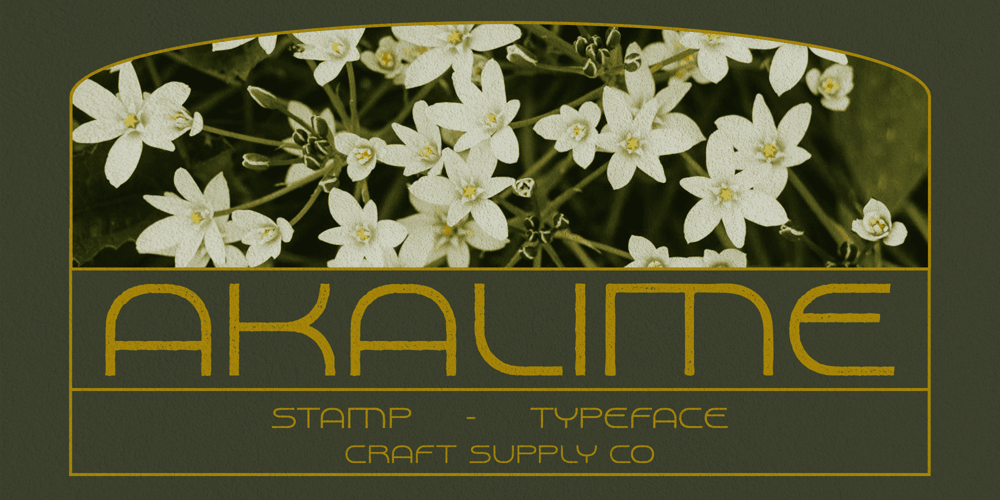
Akalime Stamp
Akalime Stamp font
Akalime Stamp Font Family was designed by Trio Nazzar Saputra, Wahyu Hadi Yuana and published by Craft Supply Co. Akalime Stamp contains 2 styles and family package options. Akalime Stamp: Embracing Cute Vintage VibesSans Serif Monoline DesignAkalime Stamp boasts a charming sans serif monoline design, exuding simplicity and elegance in every stroke. Its clean lines and uniform thickness create a modern yet timeless appearance.Geometric and Low ContrastWith its geometric shapes and low contrast, This font offers a modern aesthetic that is both sleek and minimalist. The balanced proportions and subtle contrast ensure excellent legibility across various design applications.Vintage Stamp, Drawn, and Rough EffectThe font is enhanced with a vintage stamp, drawn, and rough effect, adding a nostalgic charm to any project while maintaining its cute appeal. The distressed texture and irregular edges evoke a sense of authenticity and craftsmanship.Versatile ApplicationDespite its vintage-inspired design, This font is incredibly versatile and suitable for various applications, including branding, packaging, posters, and more. Its playful yet sophisticated look makes it ideal for projects seeking to evoke a sense of whimsy and retro nostalgia.Vintage Charm with a Cute TwistThis font combines the nostalgic charm of vintage aesthetics with a cute twist, making it perfect for projects that require a touch of whimsy and retro appeal. Whether used for display or subtle accents, Akalime Stamp adds character and personality to any design endeavor, elevating it with its unique charm and versatility.